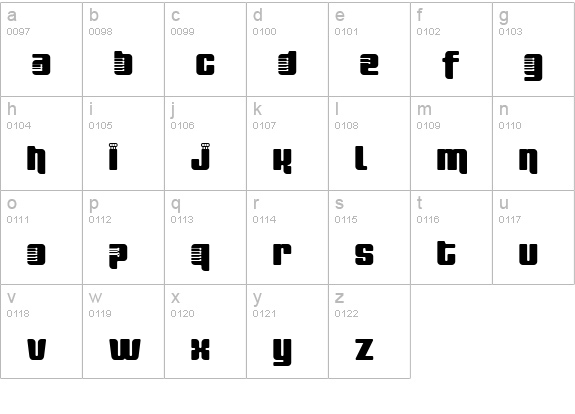
Fresh Bionik SE Font Details
Fresh Bionik SE font is a modern and stylish typeface that combines futuristic elements with a sleek and sophisticated design. This versatile font is perfect for a wide range of design projects, from branding to editorial design. Its clean lines and unique characteristics make it stand out, while its legibility ensures that it is easy to read in any context. One of the best things about Fresh Bionik SE font is that it is completely free to download. You can find this exceptional font available for download at FontsMarket.com, where you can easily access it for your design needs. Whether you are a graphic designer, a web developer, or a creative professional looking to add a fresh and contemporary touch to your projects, Fresh Bionik SE font is a fantastic choice. Download it today and elevate your designs with this exceptional typeface.